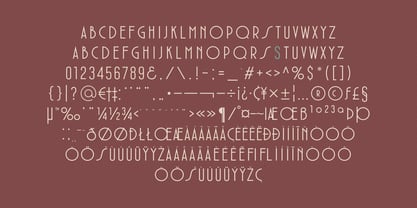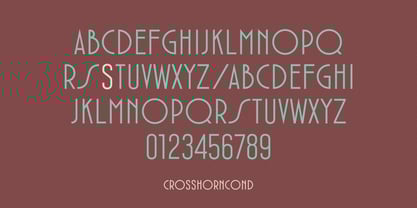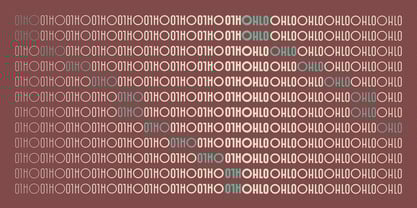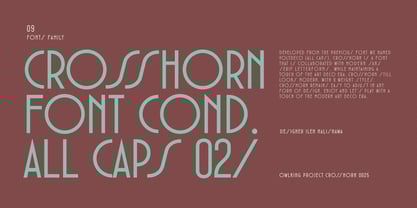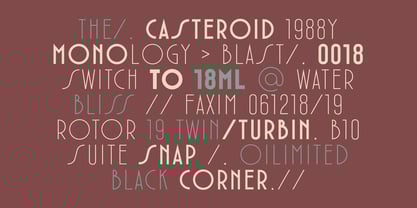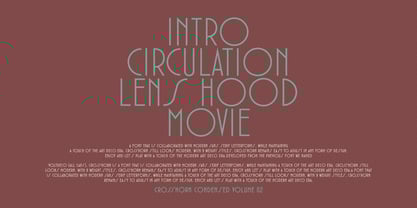
Crosshorn Condensed
by Owl king project
The Crosshorn Condensed Font Family was designed by Darhilen and published by Owl king project. Crosshorn Condensed contains 9 styles and family package options. More about this family
Crosshorn is a font that collaborated with modern sans serif letter form, while maintaining a touch of the art deco era, crosshorn still looks modern, with 9 weight styles, crosshorn remains easy to adjust in any form of design. Enjoy and let's play with a touch of the modern art deco era.